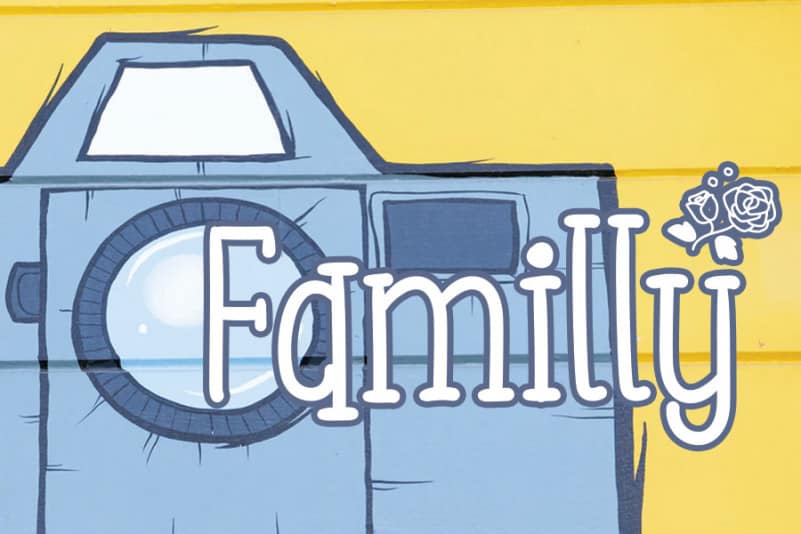
Mollenio Display Font
Mollenio Display Font is a neat and simple display font. Its well balanced characters make this font fit for a wide pool of designs.
The latest style letters are perfect for wall displays, wedding invitations, social media post logos, advertisements, product packaging, product designs, labels, photography, watermarks, invitations, stationery, and any project that requires taste handwriting.